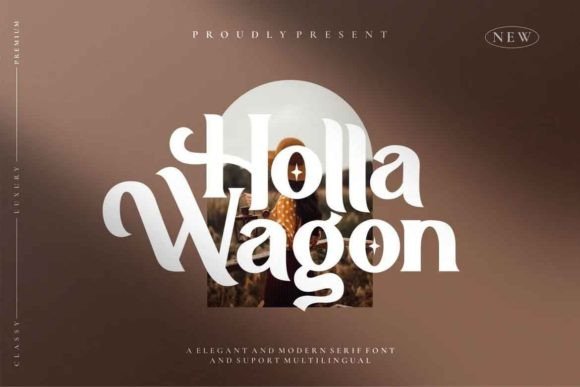
Behold Holla Wagon, a serif typeface brimming with grace and refinement. This modern yet nostalgic font, crafted by the skilled hands at zainstudio, is an artistic marvel that will elevate your designs to new heights.
Holla Wagon's elegant curves and intricate details exude a timeless charm, perfectly suited for logos, magazines, social media, and a myriad of creative projects. Its meticulously crafted glyphs dance across the page, captivating your audience with their beauty and finesse.
With Holla Wagon, you have the power to transform your designs into masterpieces. Its versatility knows no bounds, effortlessly complementing a wide range of styles and themes. Whether seeking a touch of classic elegance or a dash of contemporary flair, Holla Wagon will deliver beyond your expectations.
Unleash your creativity and let Holla Wagon take your designs on an enchanting journey. Its versatility and timeless appeal will ensure that your creations stand out from the crowd, leaving an indelible mark on all who encounter them.
Embrace the allure of Holla Wagon and open the door to a world of design possibilities. Its exquisite beauty and unmatched versatility will ignite your passion and inspire your creativity. Experience the magic of Holla Wagon today and elevate your designs to new heights of brilliance.